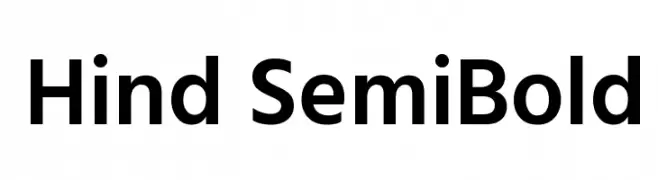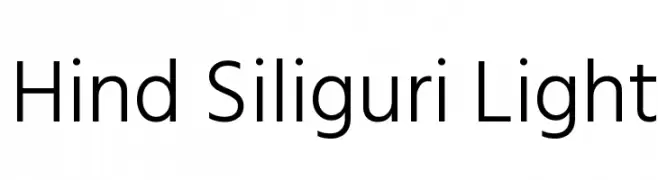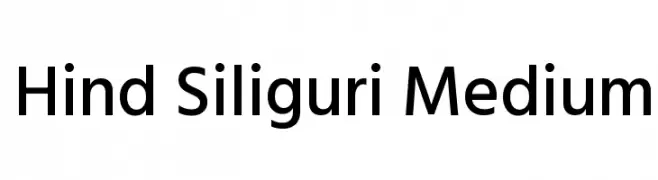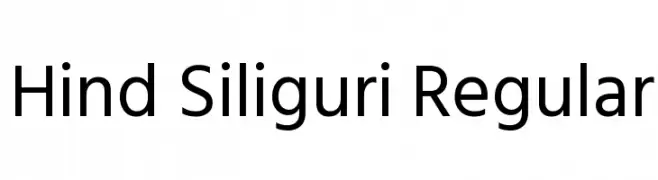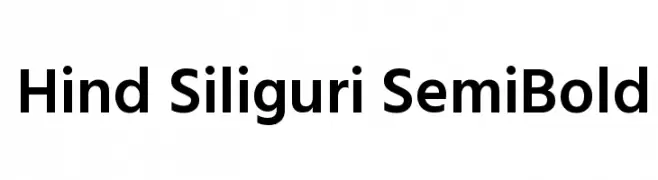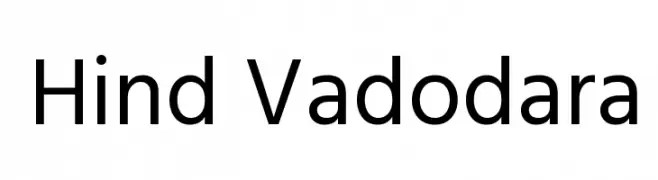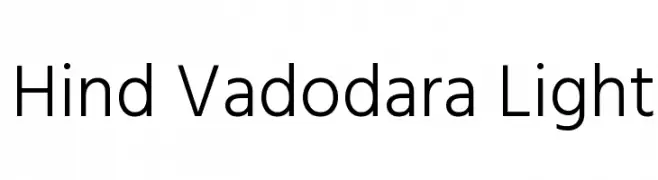
A clean, modern sans-serif font with semi-bold weight and medium contrast.
A modern, clean sans-serif font with excellent legibility and balance.
A bold, modern sans-serif font with excellent readability and geometric precision.
A modern, clean sans-serif font with excellent readability.
A modern, clean sans-serif font with excellent readability and balanced proportions.
A modern, geometric sans-serif font with uniform strokes and balanced proportions.
A modern, semi-bold sans-serif font with excellent readability and balanced proportions.
A modern, clean sans-serif font with excellent readability.
A bold, modern sans-serif font with clean lines and strong visual impact.
A clean and modern sans-serif font with uniform stroke width and excellent readability.